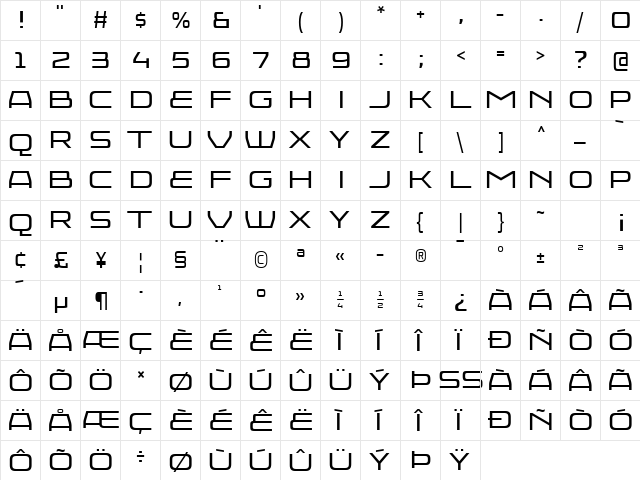
Injekuta Regular
Design Context for Injekuta Typeface
Injekuta offers clean, dependable letterforms without strong stylistic allegiance, making it a practical choice for designers who need flexibility.
Pro Tip: Pair Injekuta with a font of contrasting weight or personality to build a more expressive typographic hierarchy.